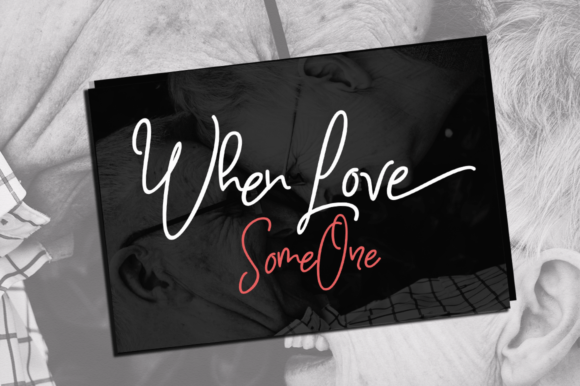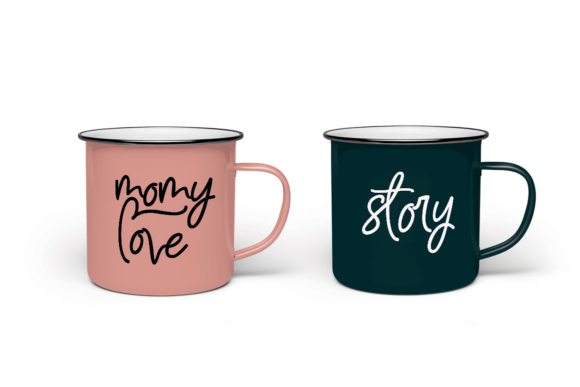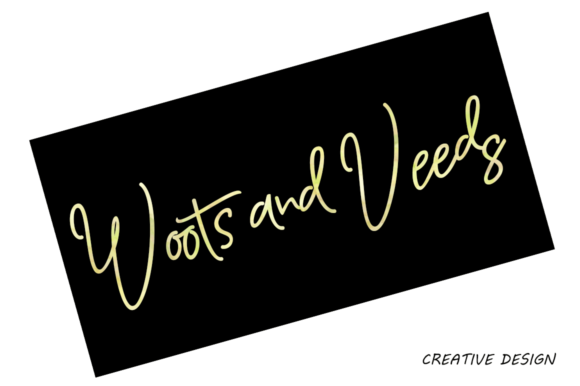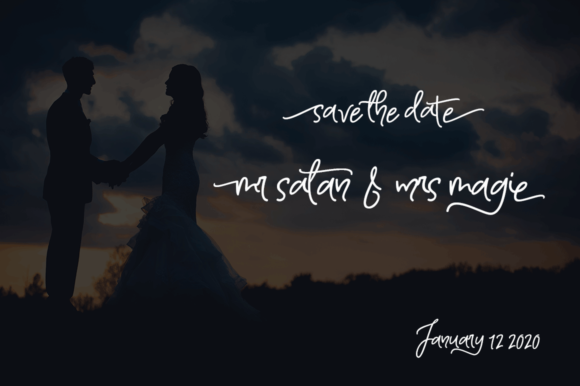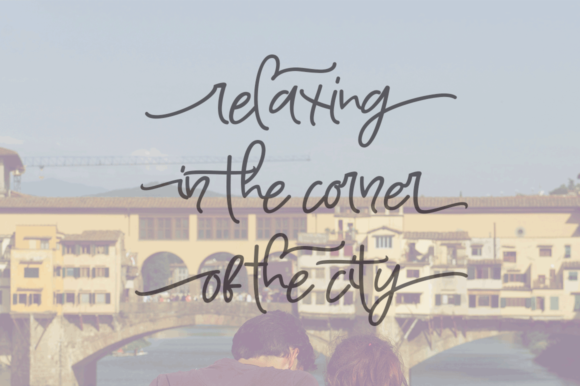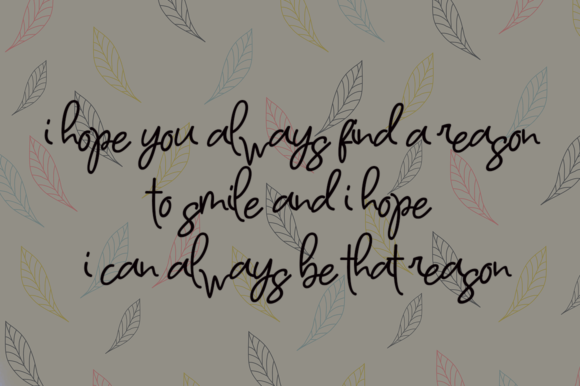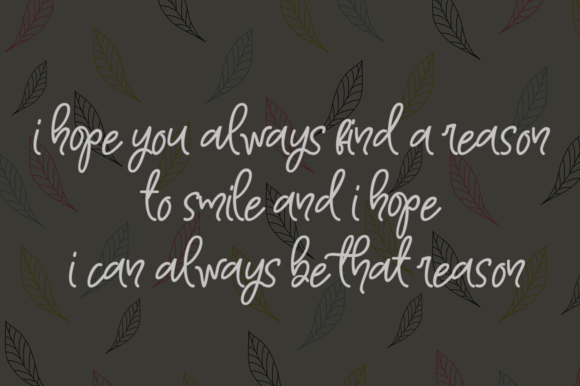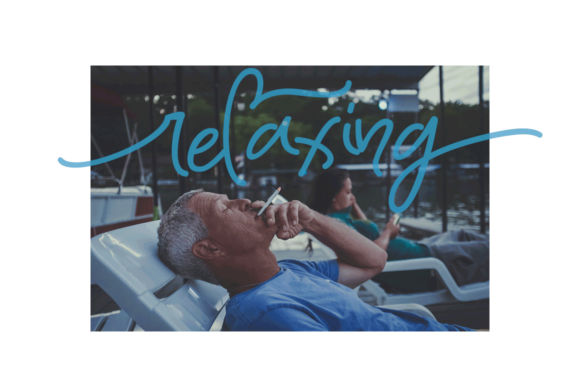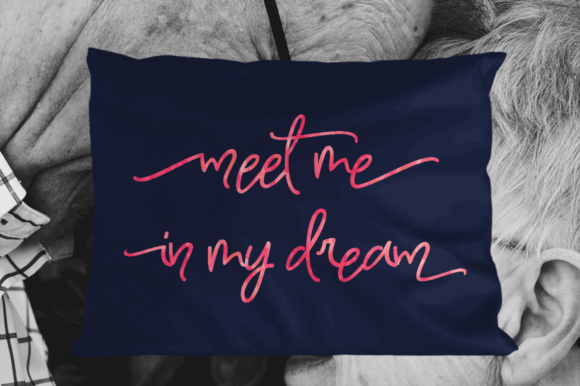
When Love Font
About When Love Font
When Love is a stunningly romantic and delicate handwritten font with a lovely feel. Get inspired by its bold charm, and fall in love with its playful swashes.